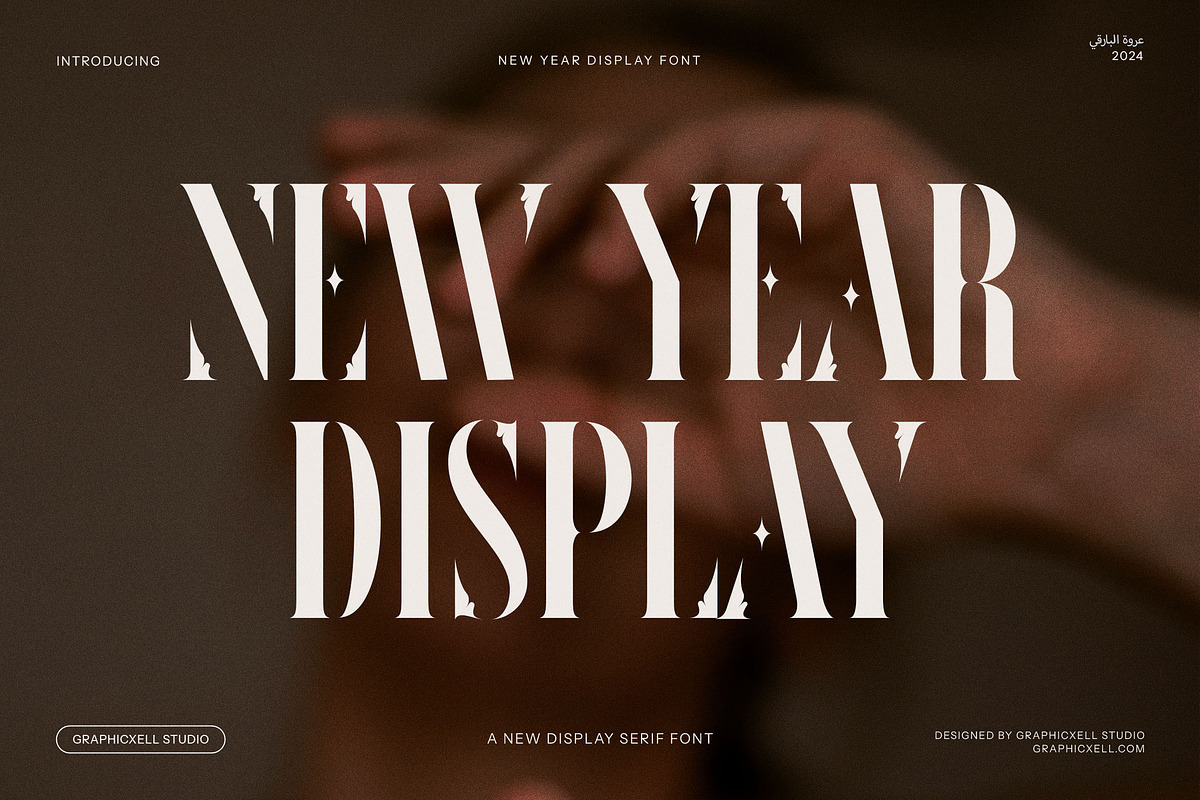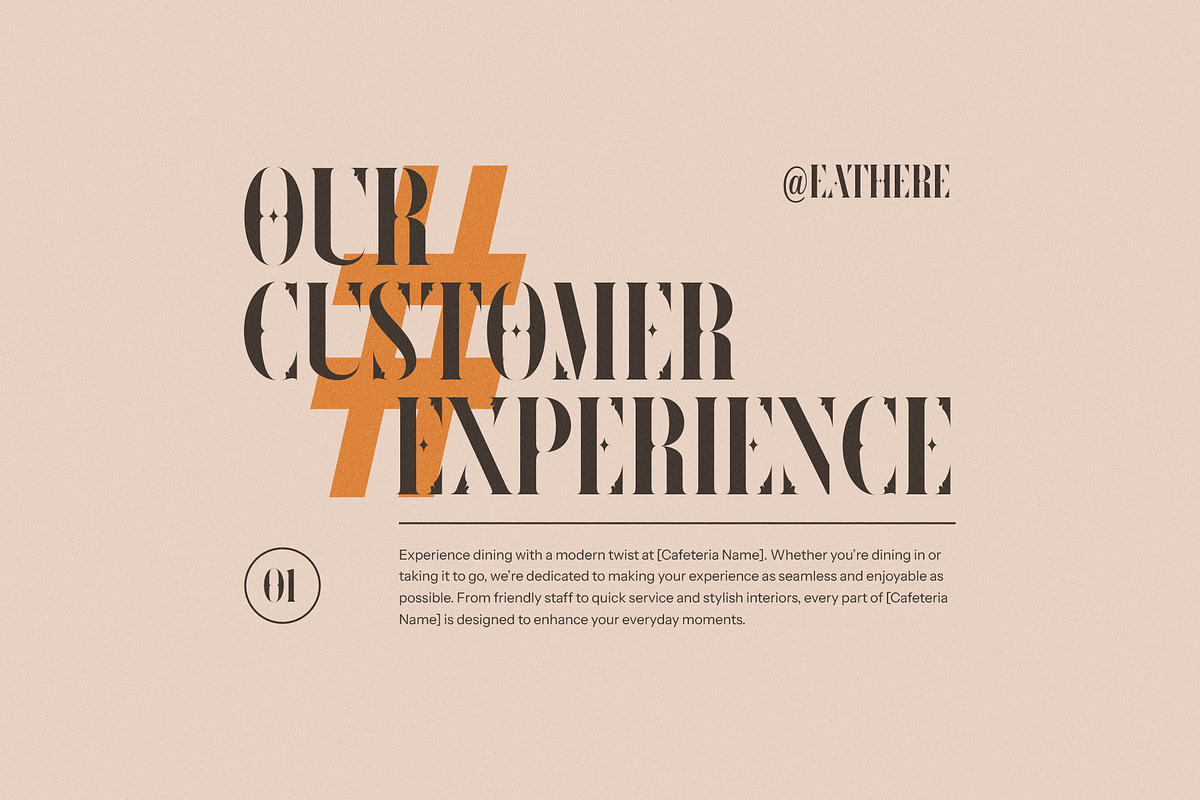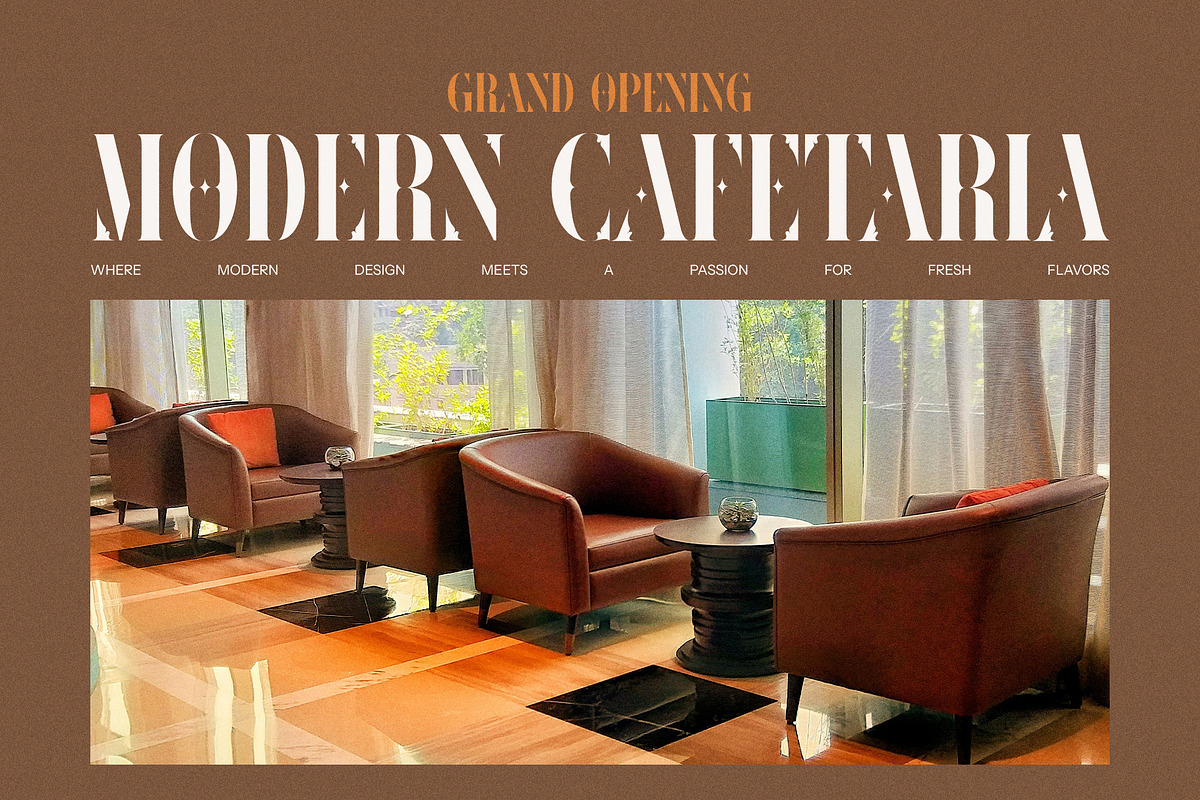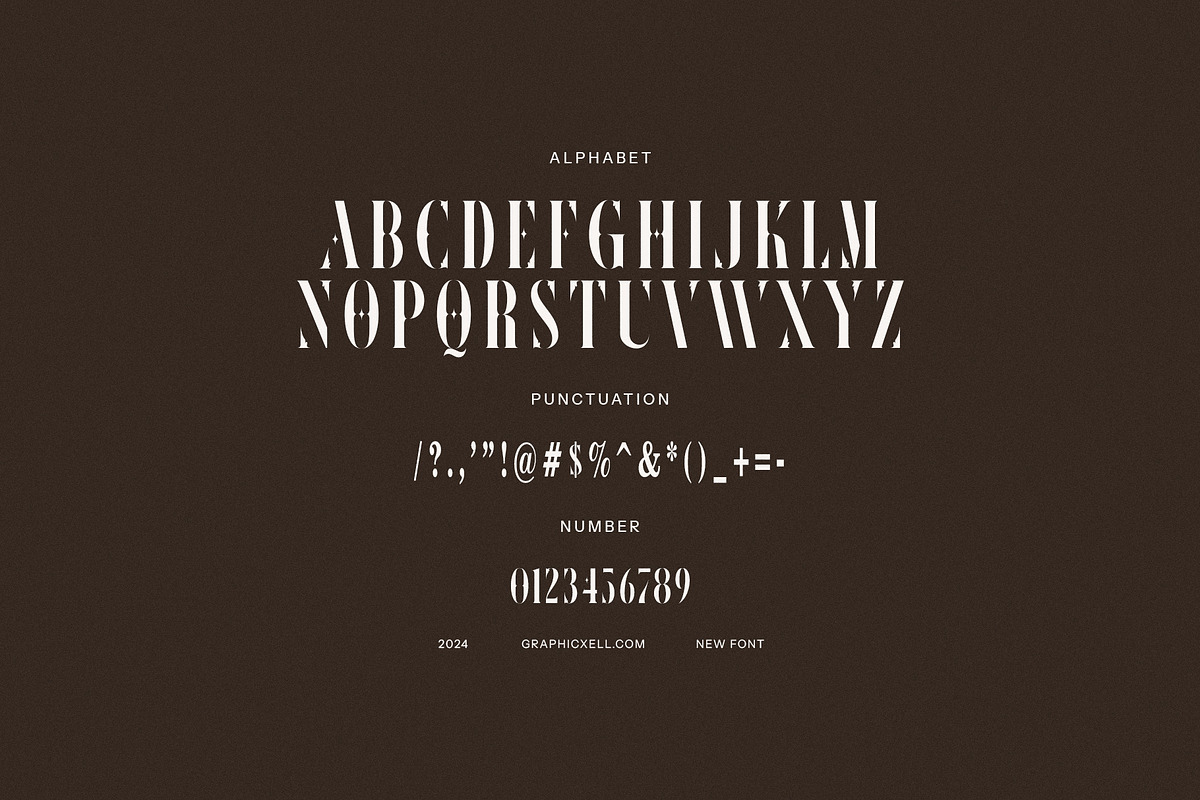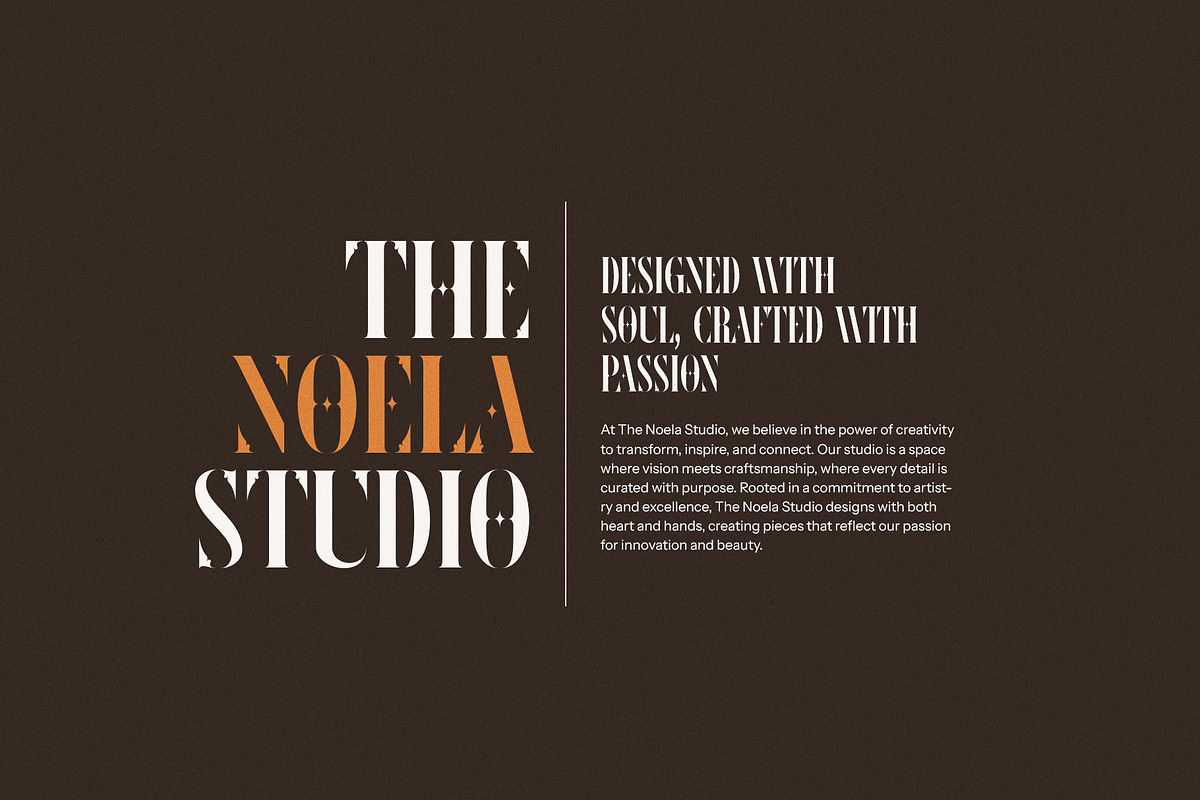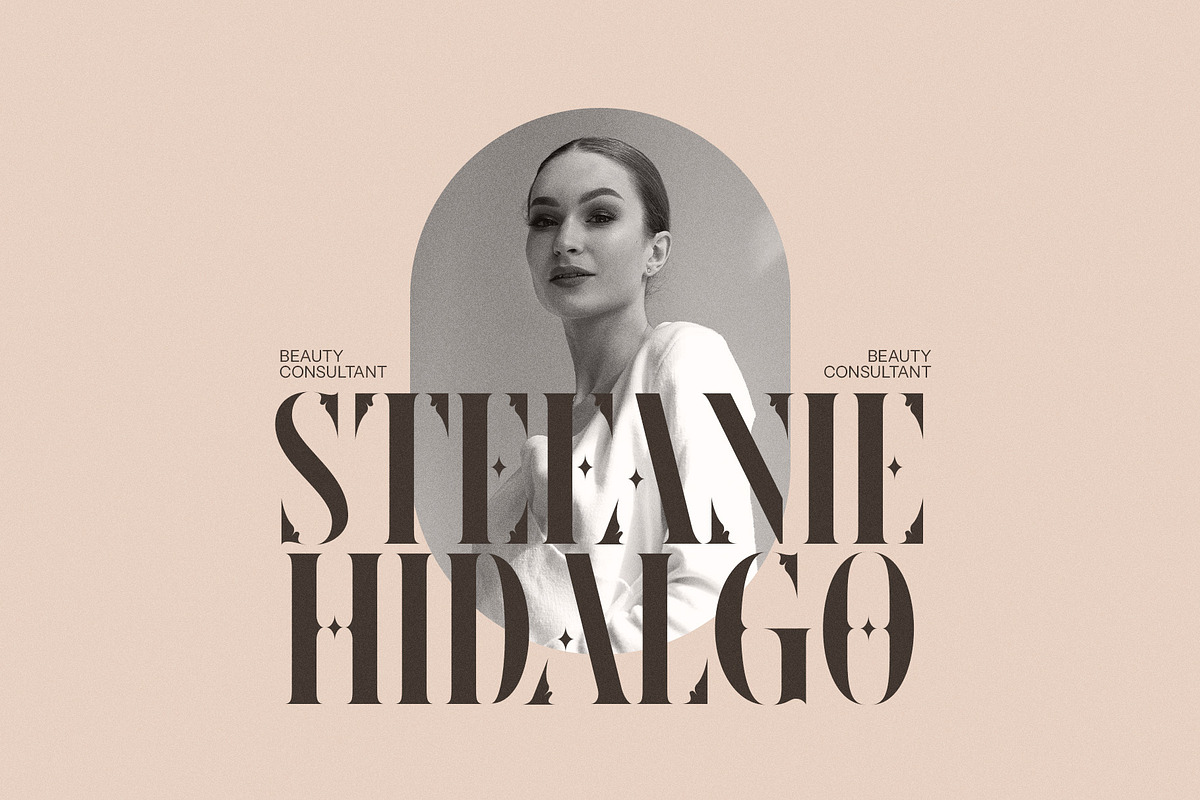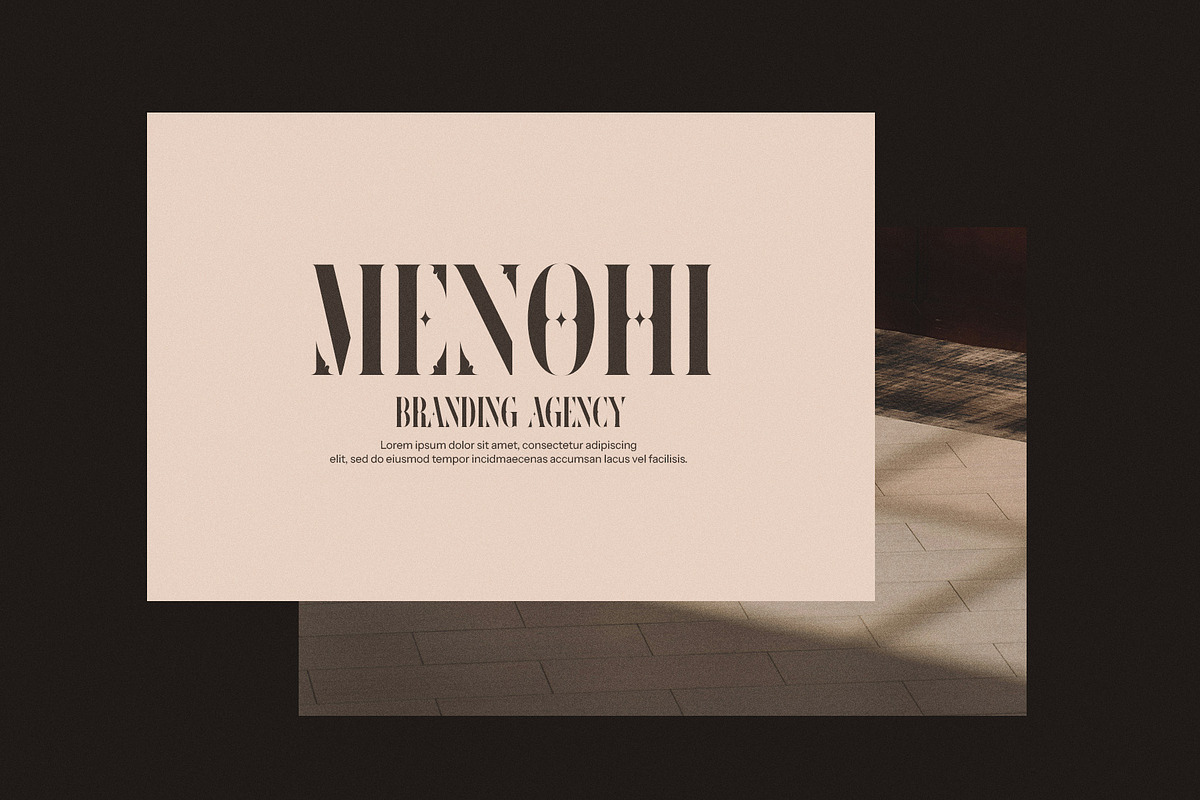
New Year Elegant Serif
New Year Elegant Serif is a font that embodies the spirit of celebration and timeless elegance, blending vintage aesthetics with a bold, modern flair. With its striking sharp corners, intricate floral flourishes, and the subtle inclusion of star shapes, this display serif font offers a sophisticated, ornamental feel that is perfect for capturing attention in any festive or upscale context.
The design of New Year Elegant Serif is a perfect balance of ornamental beauty and readability. The sharp, geometric edges of the letterforms give it a contemporary edge, while the delicate floral accents and star motifs introduce a sense of old-world charm and luxury. These details evoke a sense of grandeur and refinement, making the font especially well-suited for elegant New Year’s greetings, high-end branding, and seasonal promotions.
Whether you're crafting a logo, designing a holiday advertisement, or curating a stylish magazine layout, New Year Elegant Serif brings a sense of occasion and sophistication to your work. Its vintage-inspired elegance adds depth and visual interest to any project, while its modern touches ensure it remains fresh and versatile. Ideal for invitations, pamphlets, product labels, and digital content, this font effortlessly elevates the aesthetic of your designs.
The New Year Elegant Serif font isn’t just a typeface—it's a statement. Perfect for celebratory occasions like New Year’s events, Black Friday promotions, and upscale branding, it transforms ordinary text into a work of art, ensuring your message stands out with timeless elegance and festive charm.